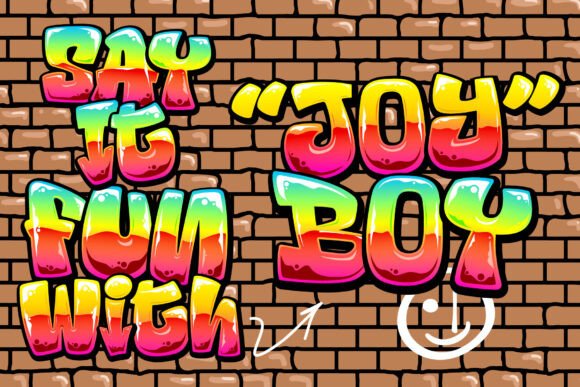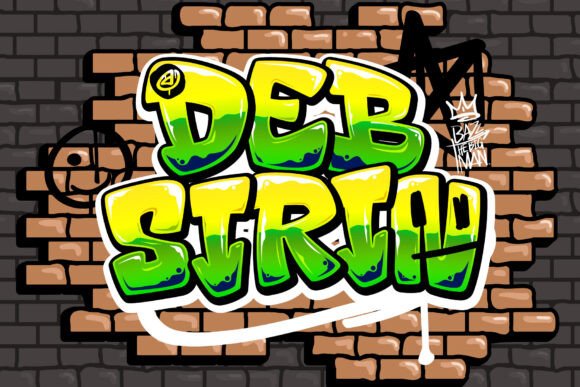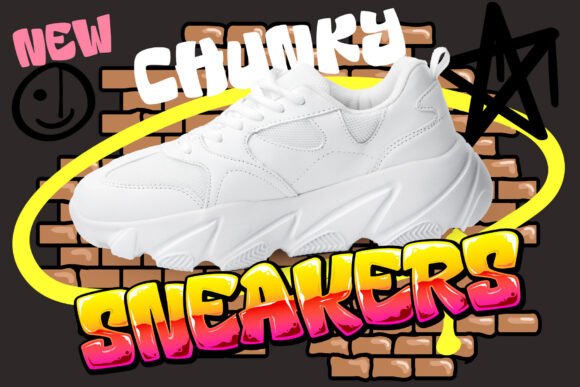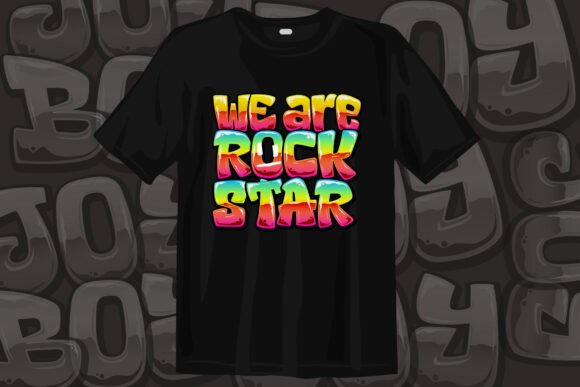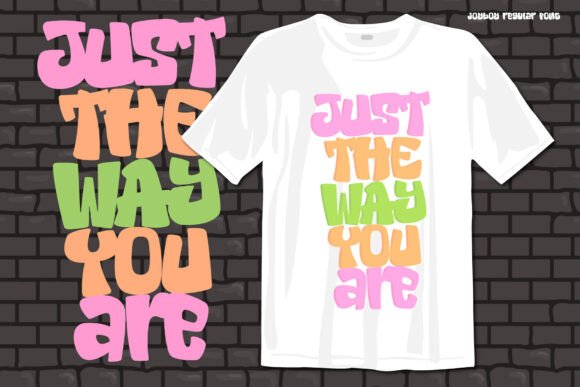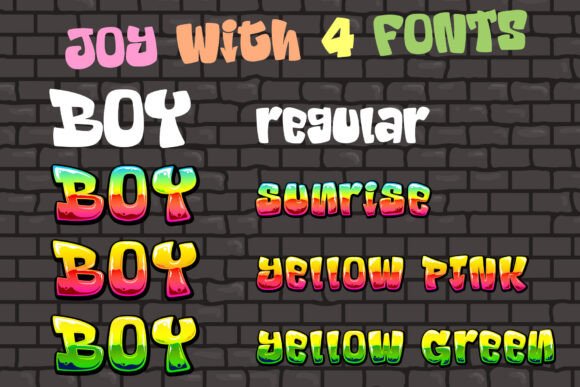
Unleashing the Power of Joy Boy Font
Have you ever stared at a blank canvas, desperately seeking inspiration for your next creative project? The blank page stares back, taunting you with its emptiness. But what if you could inject a burst of raw energy into your design? Welcome to the world of Joy Boy Font, a daring, street-chic color font that exudes attitude and refuses to blend in.
As a designer, you’re constantly on the lookout for high-quality design resources that can elevate your work and set it apart from the crowd. That’s where Joy Boy Font comes in – a game-changing font that’s perfect for logos, posters, music merchandise, and any project that needs a bold, urban twist. With its transparent background and vibrant colors, Joy Boy Font is ready to shake up your design and leave a lasting impression.
Exploring the World of Joy Boy Font
Key Features of Joy Boy Font
- High-quality design for creative projects, offering a unique and playful touch.
- Supports a range of languages, making it a versatile font for international creative projects.
- Features a clean and modern design, with a scalable size of up to 1024 points, suitable for various applications.
Honest Review: Joy Boy Font
As a designer, I’m always on the lookout for high-quality fonts that can elevate my creative projects. The Joy Boy Font caught my attention, and I’m excited to share my honest review with you.
Here are some things that work well about the Joy Boy Font:
- ✨ The Joy Boy Font comes in a variety of styles, making it perfect for a range of creative projects.
- ✨ The font is incredibly versatile, suitable for both digital and print designs.
- ⚠️ The font only comes with transparent background options, which may not be ideal for designs that require a solid background.
Overall, I’m impressed with the Joy Boy Font. While it may have some limitations, its high quality and versatility make it a valuable addition to any designer’s toolkit. I’d definitely recommend it for personal projects, and I appreciate that it’s available for free download.
The Joy Boy Font is a versatile and high-quality design resource perfect for any creative project. With its transparent background and free download option, it’s an excellent addition to your design arsenal.
The Joy Boy Font is perfect for a variety of design projects, including:
– Social media graphics
– Presentations
– Documents
– Web design